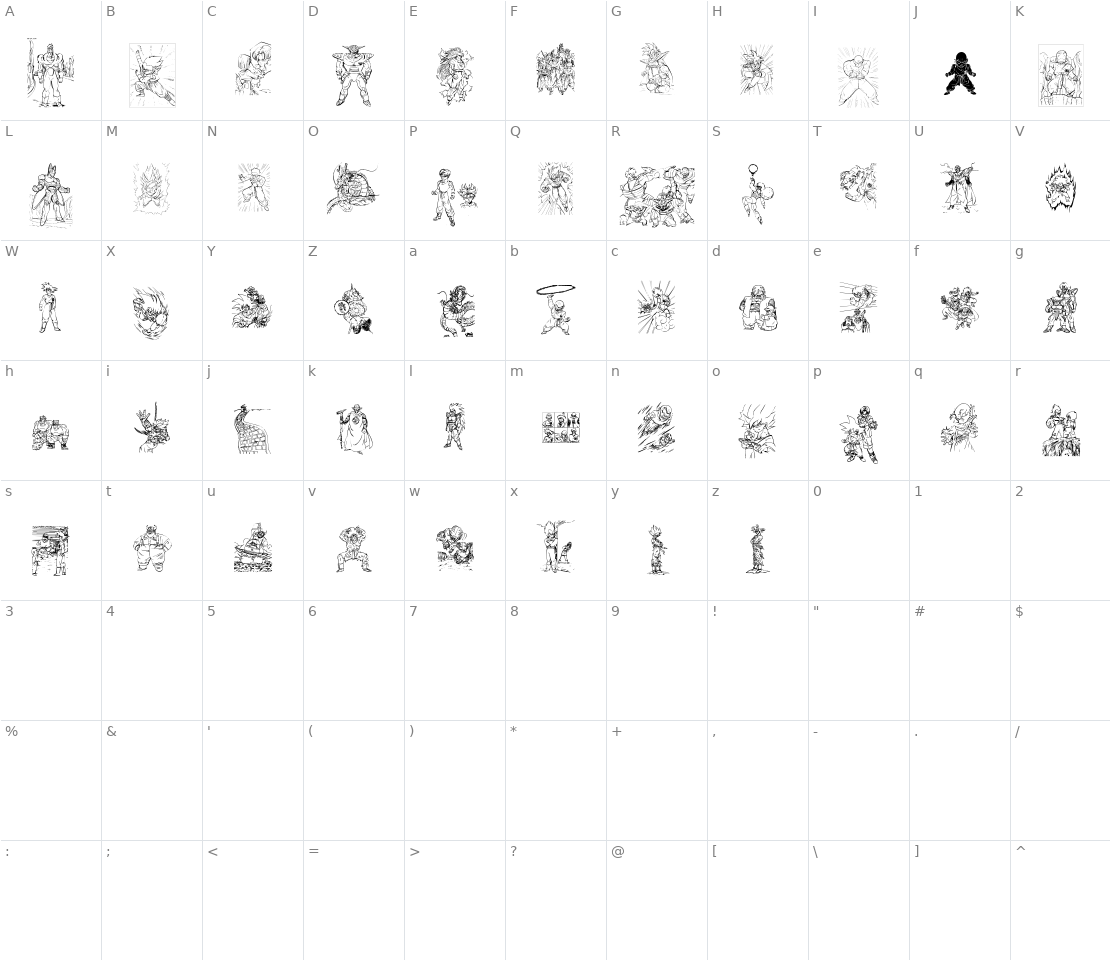
Dragon Ball TFB
Dragon Ball TFB is a decorative fantasy face by zanatlija that pulls its visual style directly from the iconic Dragon Ball anime and manga franchise. The letterforms carry that energetic, hand-drawn comic quality familiar to fans of the series, with bold strokes and an illustrative feel that goes beyond standard text into character territory. Best used for fan projects, themed graphics, and display work where that specific Dragon Ball energy is the whole point.